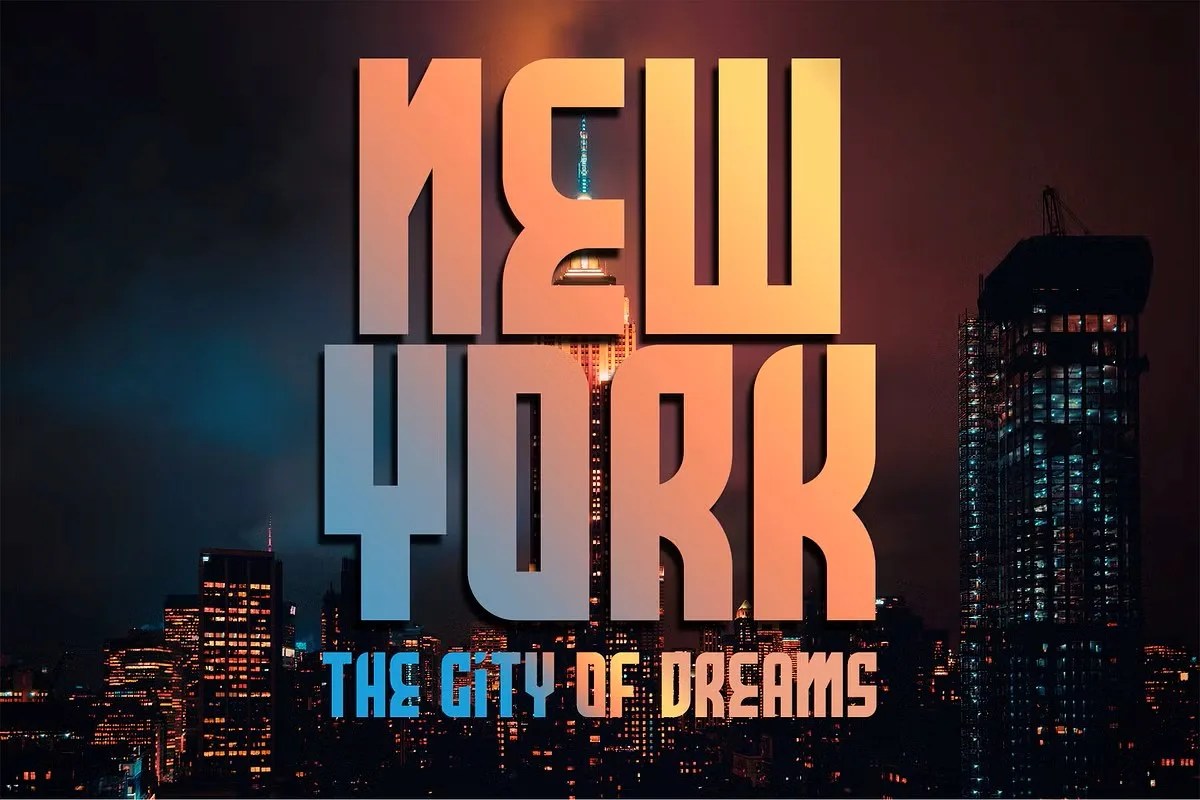
Exhotic by Letterara. This is a truly unique and stylish sans serif font that is designed to be noticed. It masterfully blends minimalist purity with exotic, eye-catching details. This font offers a sophisticated and memorable alternative to more conventional typefaces. Exhotic is perfect for creative projects that demand a touch of mystery and high-end elegance. It gives your words an artistic and worldly character.
This font is a perfect match for sophisticated design projects. Specifically, its elegant nature is ideal for high-end fashion and beauty branding. It can elevate a simple logo into a memorable and luxurious statement. Furthermore, this stylish sans serif font works beautifully for magazine headlines and editorial layouts. It adds a touch of artistic flair to any page or screen. Use it for exclusive event invitations or premium product packaging where you want to create a sense of intrigue and exclusivity.
• Unique and stylish sans serif style
• Features eye-catching, elegant details
• Ideal for luxury branding, fashion, and logos
• Adds a sophisticated and exotic feel